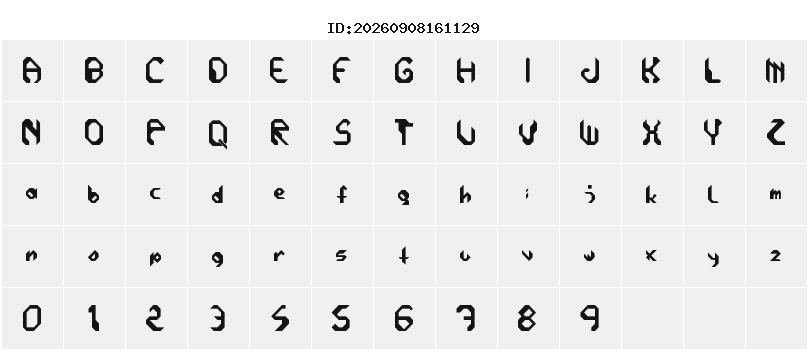
• Font Name: vAonom
• Full Font Name: vAonom Bold
About vAonom.ttf
vAonom.ttf is a modern, elegant sans-serif font designed for ultimate readability and visual harmony. Perfect for branding, headlines, web design, and print materials.